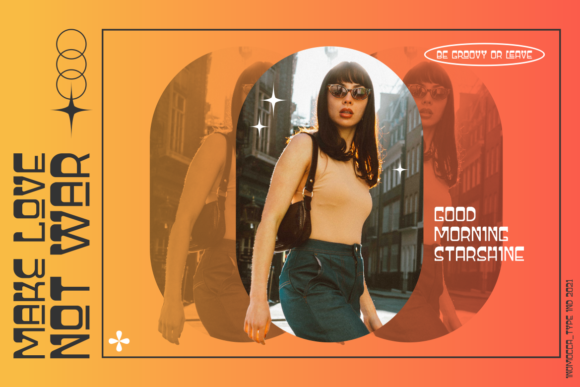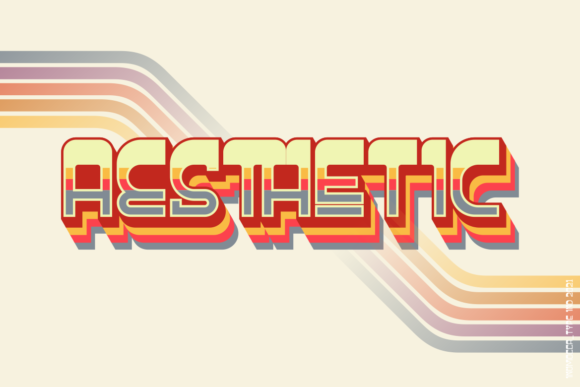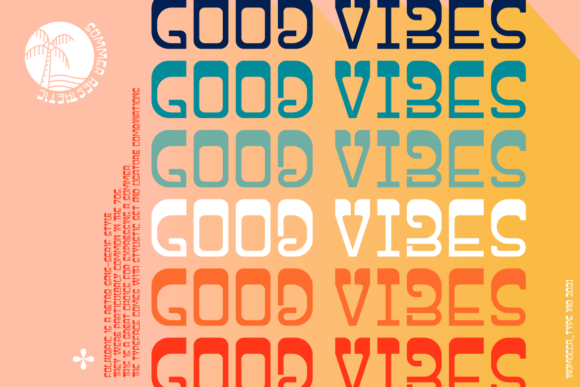
Introduction to Folkloric Font
Folkloric is an incredibly unique display font.
Masterfully designed to become a true favorite, this font has the potential to bring each of your creative ideas to the highest level This font is PUA encoded which means you can access all of the glyphs and swashes with ease.
Folkloric Font offers exceptional quality and versatility, making it a valuable addition to your design toolkit. Whether you’re creating for personal projects or commercial use, Folkloric Font delivers professional results.